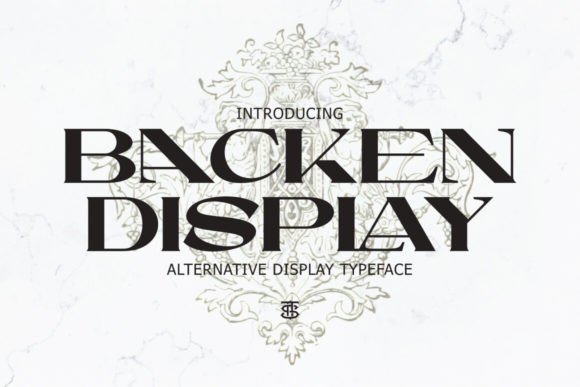
Introducing Backen Display Font, the epitome of beauty and modernity in the world of fonts! Created by the talented Tebaltipis.std, this font is the perfect choice for anyone looking to elevate their designs and captivate their audience.
With its strong style and dancing baseline, Backen is a breath of fresh air. Its elegance and sophistication make it ideal for a wide range of design projects. Imagine the stunning impact it will have on your invitations, greeting cards, branding materials, business cards, quotes, posters, and so much more!
But Backen is not just another display font—it is a bold statement. Part of a strong and modern Bold display family, this typeface commands attention and leaves a lasting impression. Whether used at display sizes or in text, its readability remains unmatched. The sharp shapes of the triangular serif and the distinctive letter forms add a touch of strength to logo designs and create an impressive editorial presence.
We understand the importance of versatility, which is why Backen Display Typeface is PUA encoded. This means that you can effortlessly access the wide array of amazing glyphs and ligatures that this font offers. Let your creativity soar as you explore the endless possibilities that Backen brings to your designs.
Now, let's talk about why Backen is the ultimate choice for anyone looking to make a statement. Its exquisite details and elegant curves evoke a range of emotions, from awe to inspiration. Imagine the impact it will have on your customers when they encounter your menu design, as they are instantly drawn to the captivating beauty of Backen.
But the true power of Backen lies in its ability to connect with your audience on a deeper level. With every stroke and every curve, it speaks volumes about your brand's personality and values. It sets you apart from the crowd and establishes a strong visual identity that resonates with your customers.
So, why settle for ordinary when you can have extraordinary? Backen Display Font is the key to unlocking a world of creativity and captivating your audience like never before. With its emotional appeal and creative potential, it's no wonder that Backen is considered one of the best fonts for menu design.